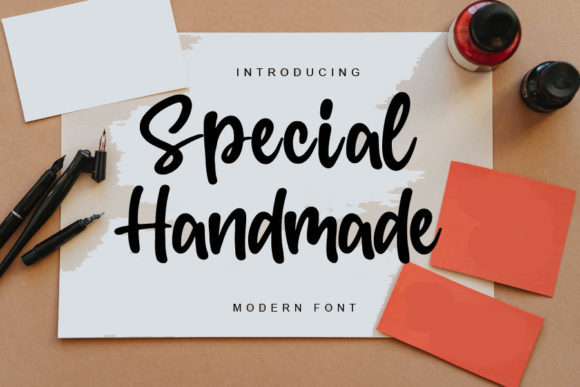
Introducing Special Handmade Font, the epitome of elegance and charm in the world of script fonts. This exquisite creation by ABBAsalam is not merely a font; it's an artistic expression that will transform your designs into masterpieces of visual storytelling.
Special Handmade Font boasts a unique and captivating personality that sets it apart from the ordinary. Its delicate curves and flowing lines evoke a sense of timeless elegance, while its playful and modern twist adds a touch of contemporary flair. The result is a font that is both classic and fresh, perfect for designers seeking to create designs that resonate with audiences.
With its versatility and adaptability, Special Handmade Font empowers you to tackle a myriad of creative projects with confidence. Whether you're crafting eye-catching logos, designing sophisticated brochures, or creating personalized invitations, this font will elevate your work to new heights. Its innate charm will add a touch of sophistication to branding materials, while its playful nature will bring a smile to the faces of readers.
Unleash your creativity and explore the limitless possibilities that await you with Special Handmade Font. Its impeccable craftsmanship ensures that every letter, every word, and every design element will be rendered with the utmost precision and beauty. This font is your gateway to crafting designs that are not just visually appealing but also deeply meaningful, leaving a lasting impression on your audience.
Embrace the allure of Special Handmade Font and embark on a creative journey that knows no bounds. Its timeless beauty and modern appeal will transform your designs into works of art, captivating the hearts and minds of all who behold them.